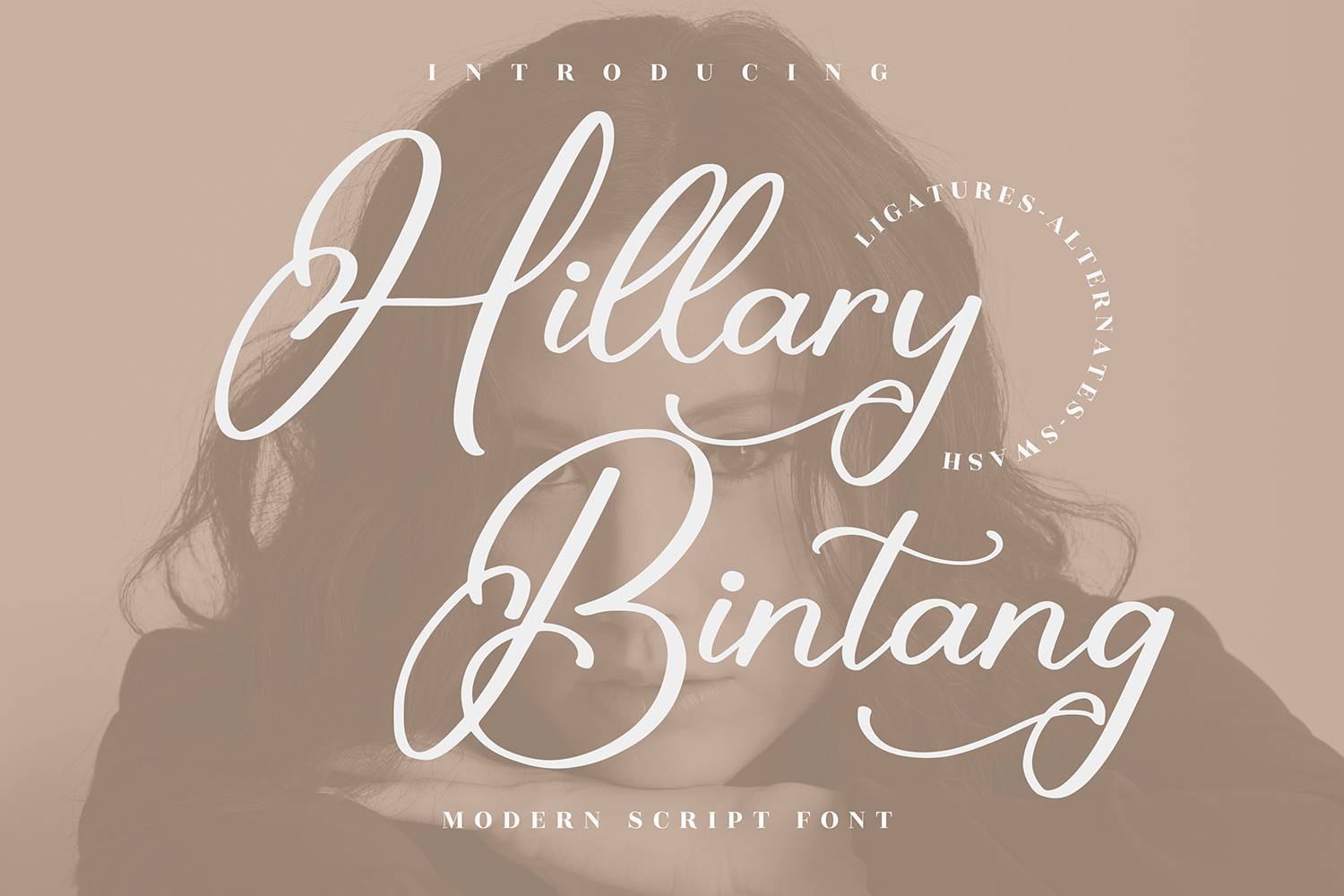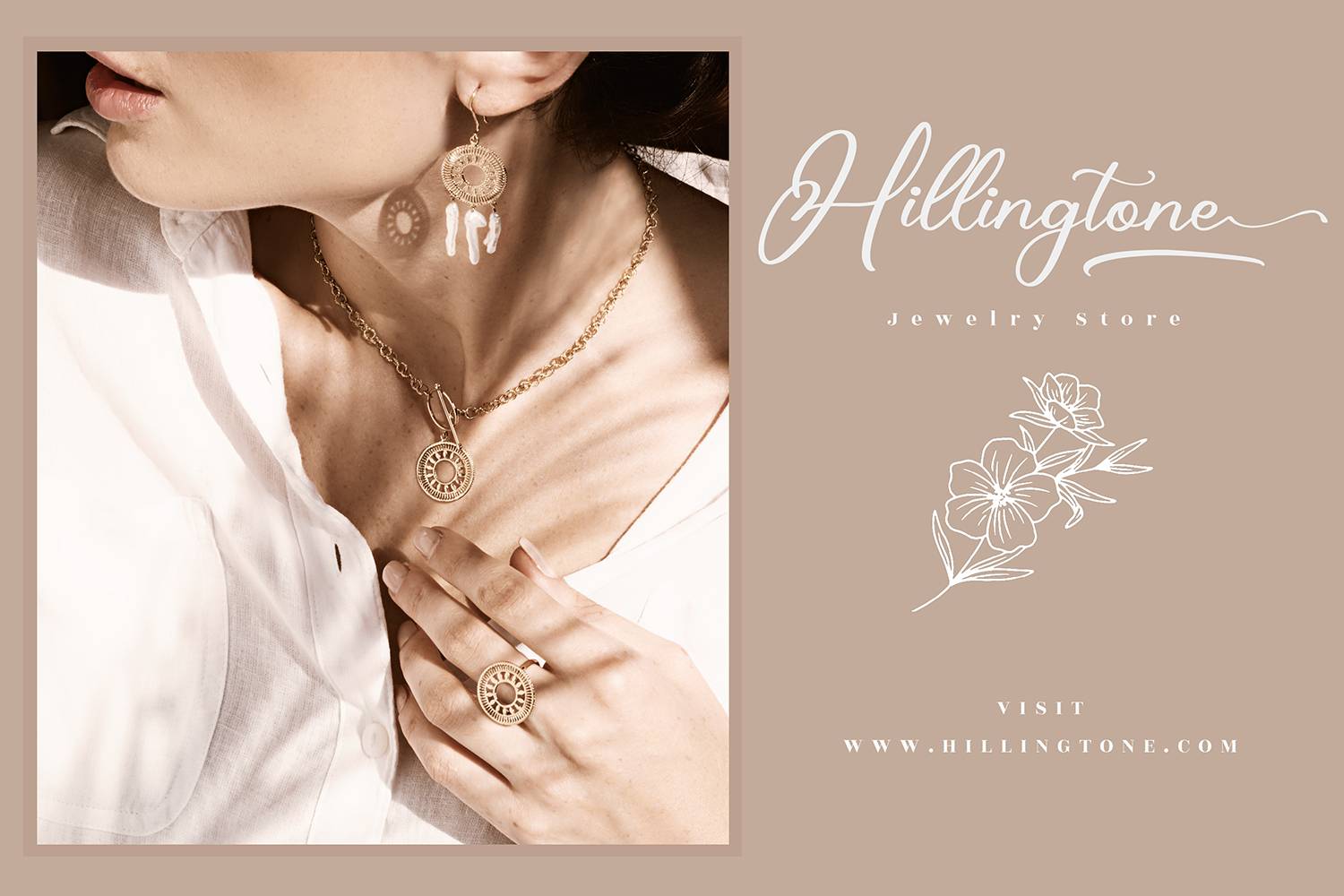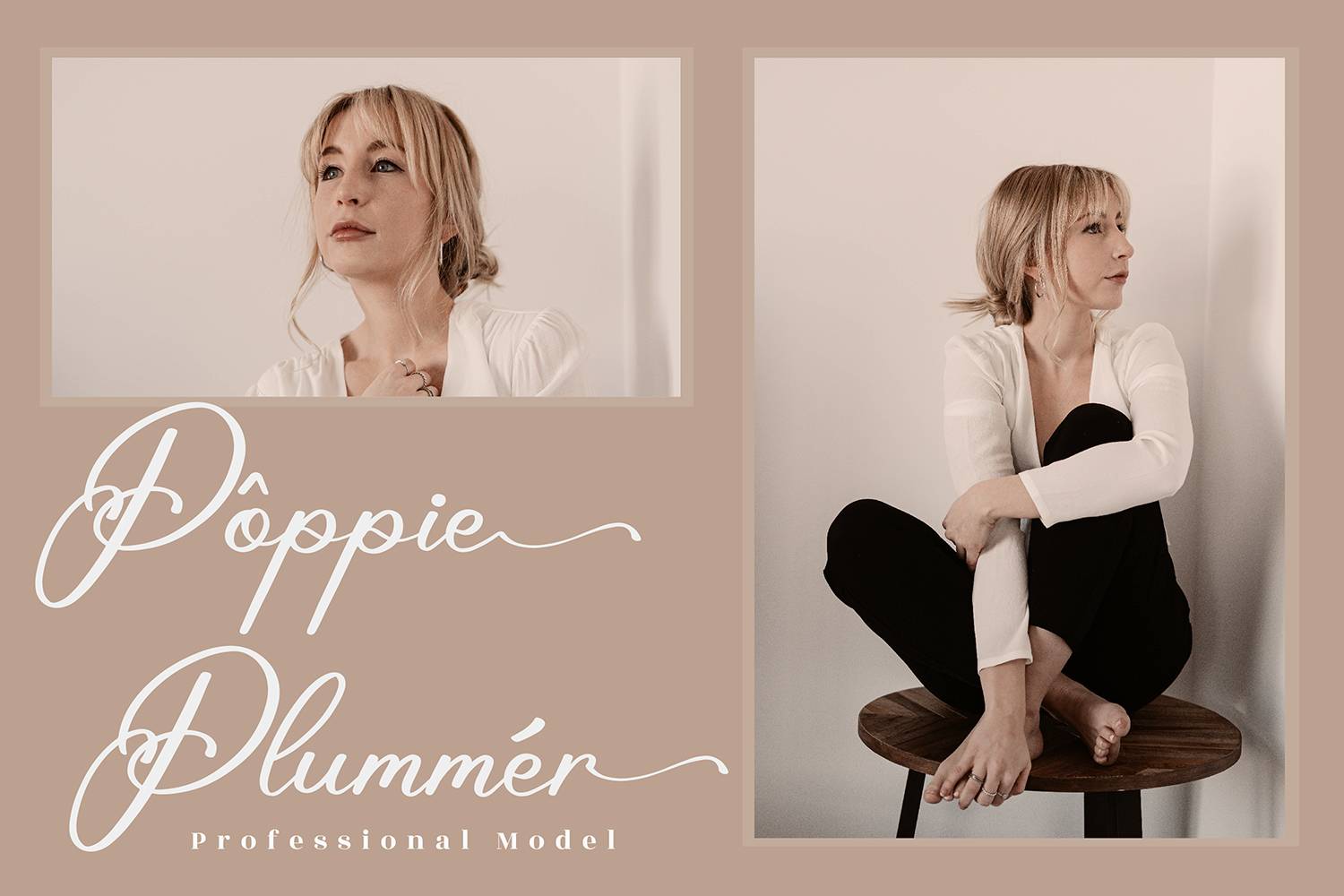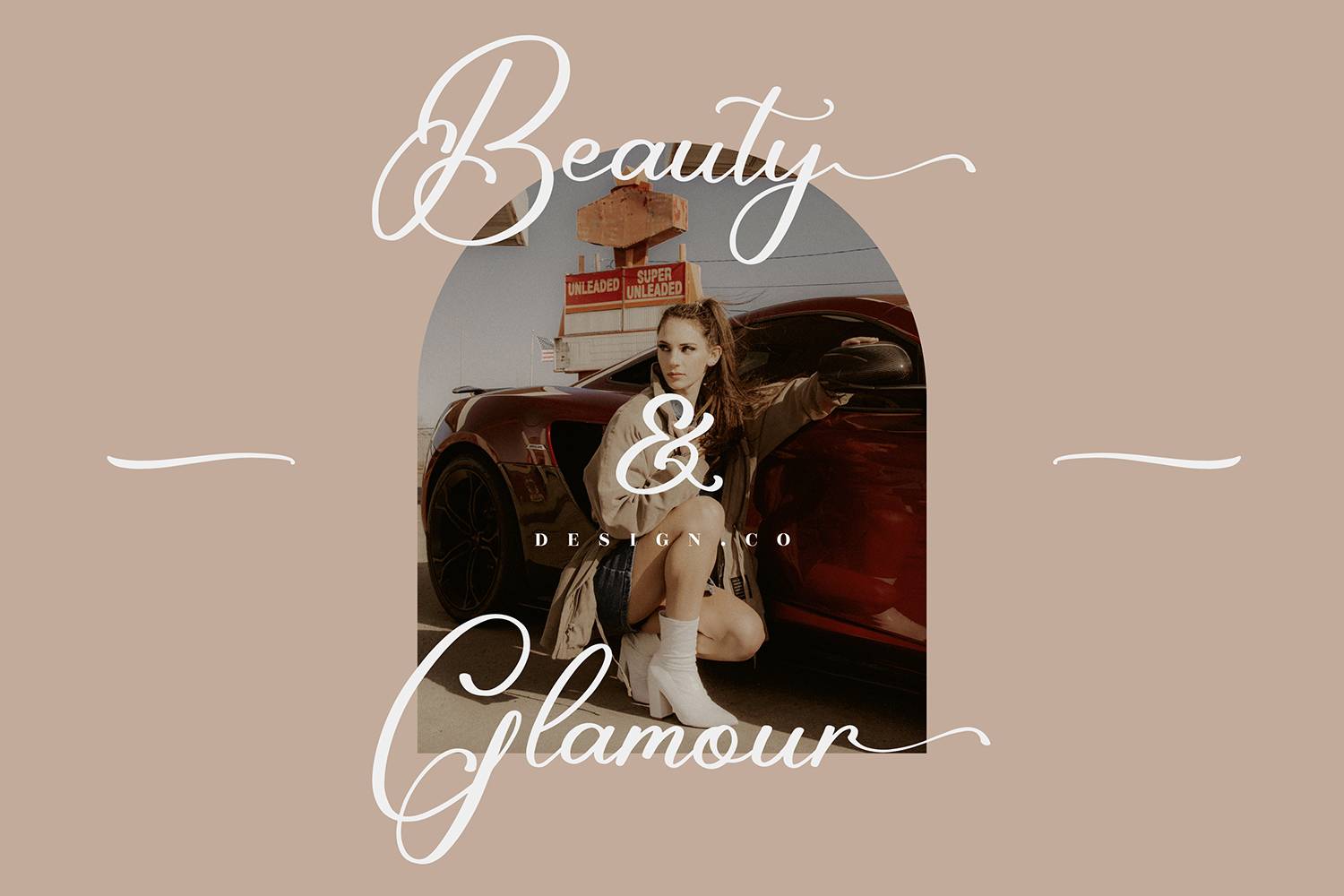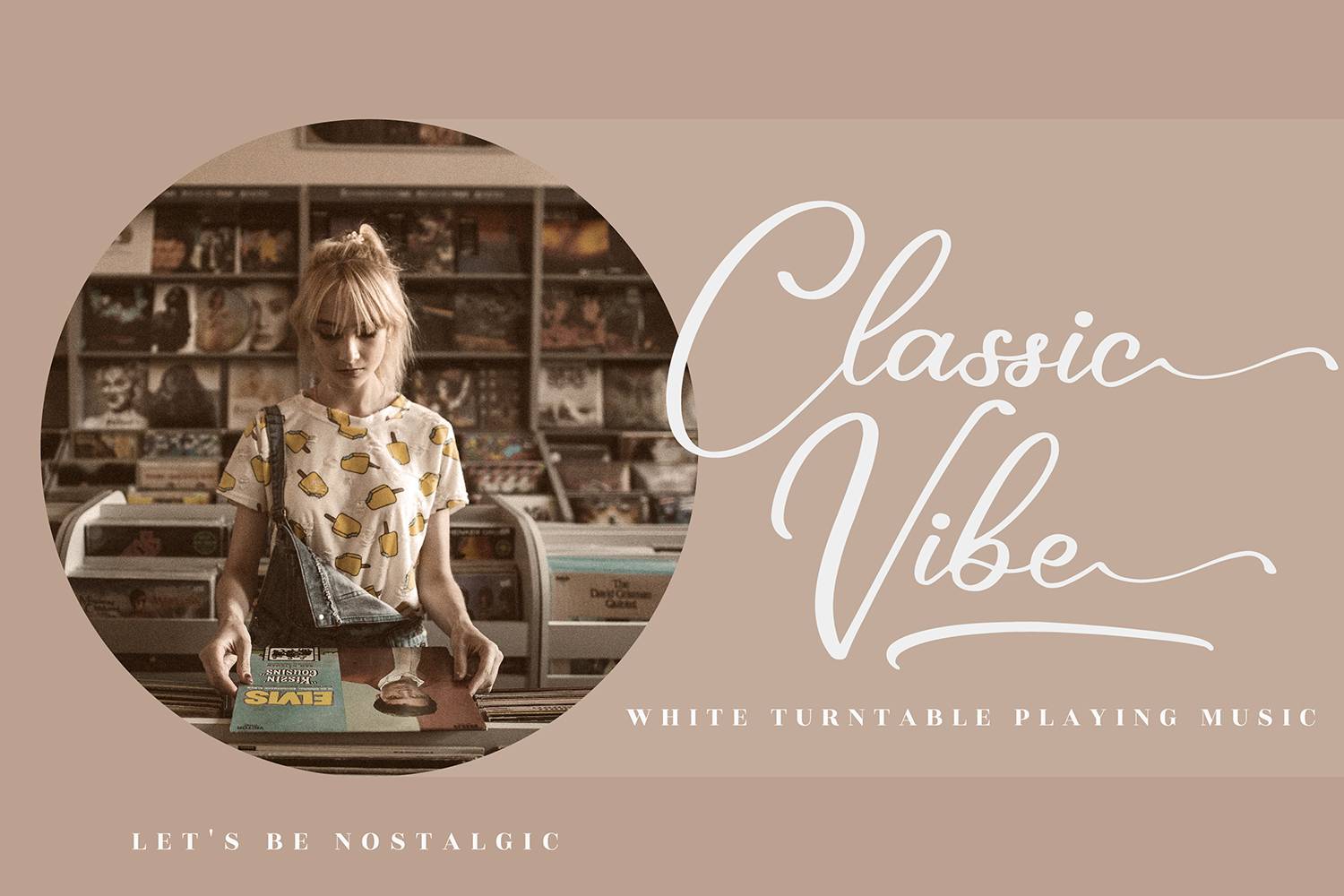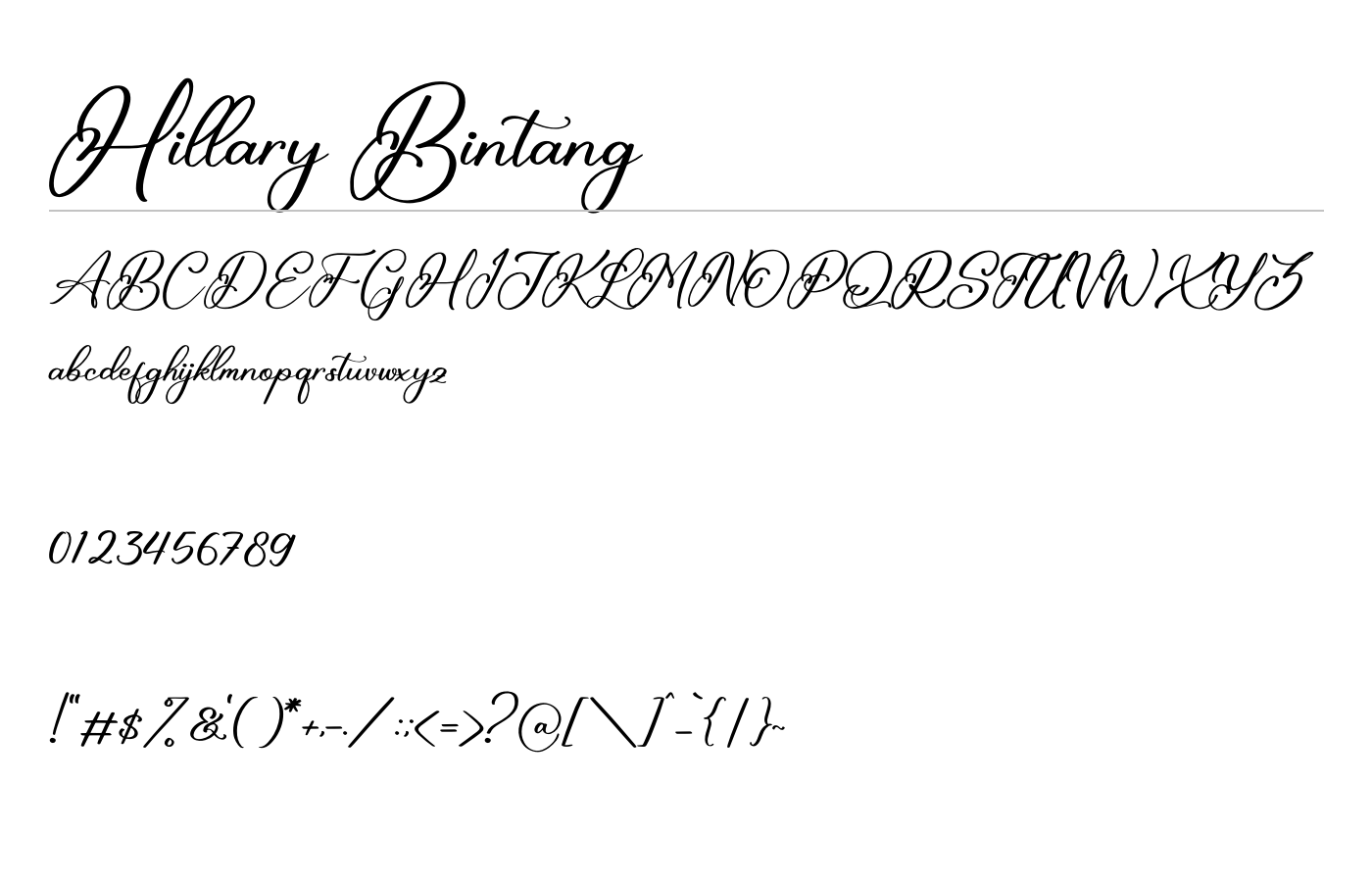
Hillary Bintang is an elegant script font characterized by its flowing, cursive letterforms with graceful swashes and moderate stroke contrast. It exudes a classic, sophisticated charm ideal for formal invitations, branding, and editorial headlines where a refined, handwritten feel is desired. This font’s delicate yet readable design makes it perfect for adding a touch of luxury and personality to fashion, wedding designs, and upscale packaging.
Hillary Bintang
About Hillary Bintang